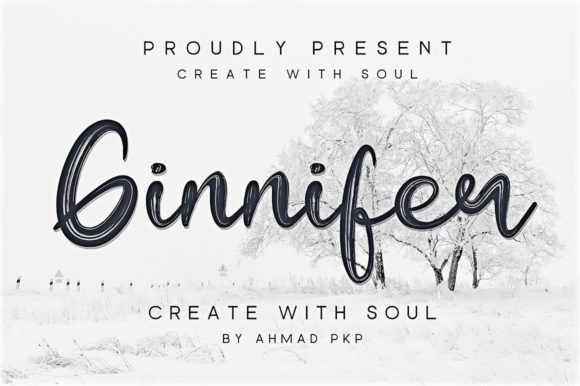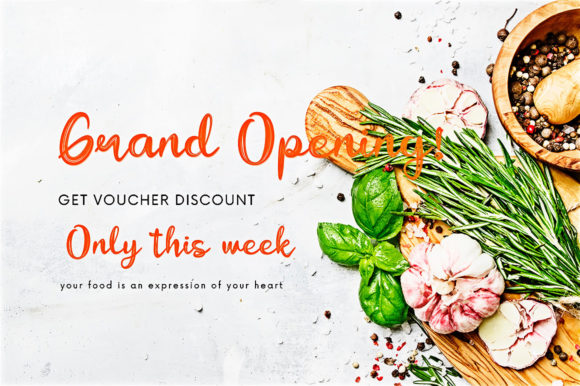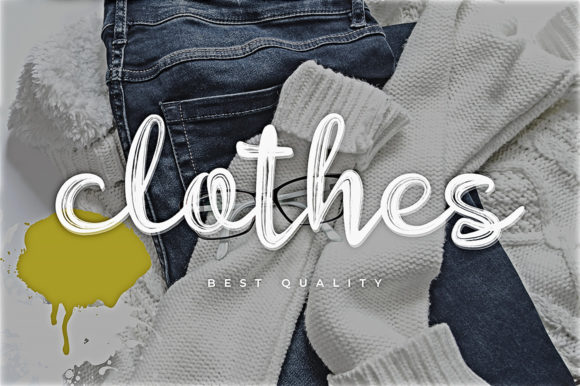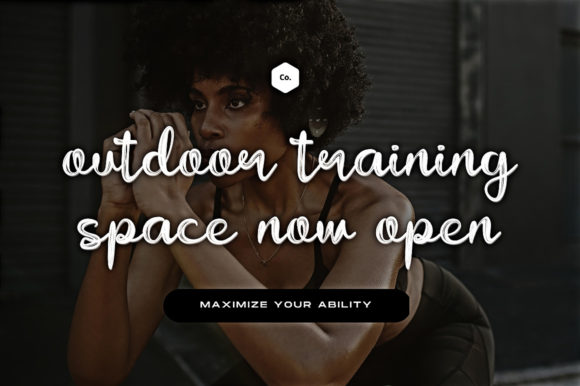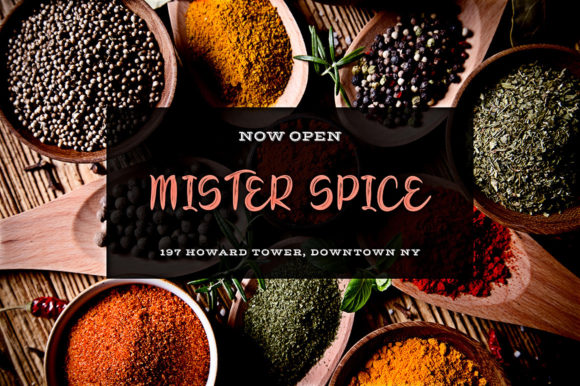
About Ginnifer Font
Ginnifer is a stylish and modern brushed script font that exudes a sense of fashion and creativity. With its unique strokes and trendy design, Ginnifer is the perfect choice for a wide range of branding projects, adding a touch of sophistication and flair to your designs.
For logos, Ginnifer makes a bold statement with its brushed texture and contemporary style. Whether you’re creating a logo for a fashion brand, a creative agency, or a lifestyle blog, Ginnifer’s fashionable script adds a touch of elegance and uniqueness that sets your brand apart.
T-shirt printing takes on a trendy and eye-catching appeal with Ginnifer. Its bold and distinct letterforms make it ideal for creating impactful and memorable designs for apparel. Whether it’s a catchy slogan, a brand name, or a stylish graphic, Ginnifer’s brushed texture adds a touch of edginess to your t-shirt designs.
Creative products come to life with Ginnifer’s artistic and contemporary vibe. From product packaging to labels and tags, Ginnifer’s stylish script font enhances the visual appeal of your products, giving them a modern and trendy look that resonates with your target audience.
Incorporating Ginnifer into your designs for posters, flyers, and promotional materials adds a touch of sophistication and creativity to your marketing efforts. Its brushed texture and fashionable appearance capture attention and create a memorable impression.
Ginnifer’s versatility extends to various contexts, such as social media graphics, website headers, and digital presentations. Its stylish and modern design adapts seamlessly to different platforms, ensuring that your content stands out and leaves a lasting impact.
In summary, Ginnifer is a brushed and fashionable script font that brings a trendy and sophisticated vibe to any branding project. Whether it’s logos, t-shirt printing, creative products, or other design endeavors, Ginnifer’s unique strokes and contemporary style will elevate your designs and make them look extraordinary in a variety of contexts. Embrace the stylish charm of Ginnifer and let your creativity shine.